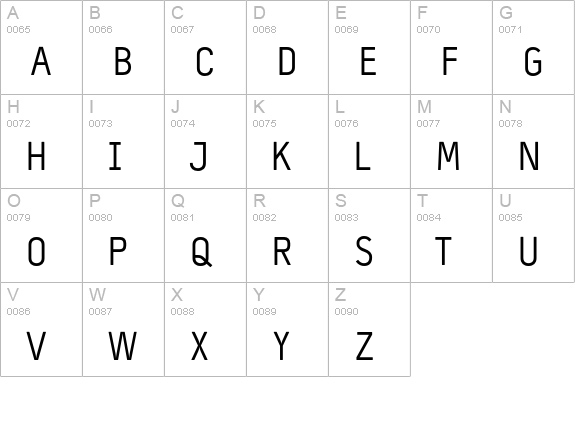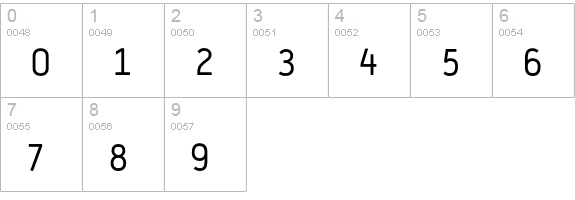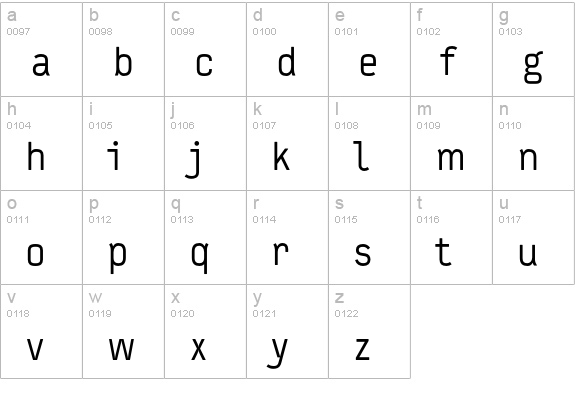
Typestar-Normal is the standard, neutral variant in the Typestar typeface family \xE2\x80\x94 well suited to general body text, paragraphs, and standard typographic work.
Typestar-Normal is a versatile and elegant font that effortlessly combines modernity with sophistication. With its clean lines and balanced proportions, this font captures attention while maintaining a timeless appeal. It is the perfect choice for a wide range of design projects, from branding and advertising to invitations and packaging. What makes Typestar-Normal even more appealing is that it is available for free download at FontsMarket.com. This means that you can easily access and utilize this stunning font without any cost. It offers a fantastic opportunity for designers, creatives, and enthusiasts to elevate their projects with a high-quality typeface without breaking the bank. Whether you are creating a professional presentation, designing a logo, or crafting a captivating website, Typestar-Normal has got you covered. Its legibility and versatility make it suitable for both print and digital mediums, ensuring that your message is communicated effectively and beautifully. The character set of Typestar-Normal encompasses uppercase and lowercase letters, numerals, punctuation marks, and a variety of special characters. This extensive range of glyphs provides you with the flexibility to create stunning typographic compositions that truly stand out. Embrace the beauty and versatility of Typestar-Normal and bring your designs to life with its refined and stylish aesthetic. Download this remarkable font for free at FontsMarket.com and let your creativity soar.